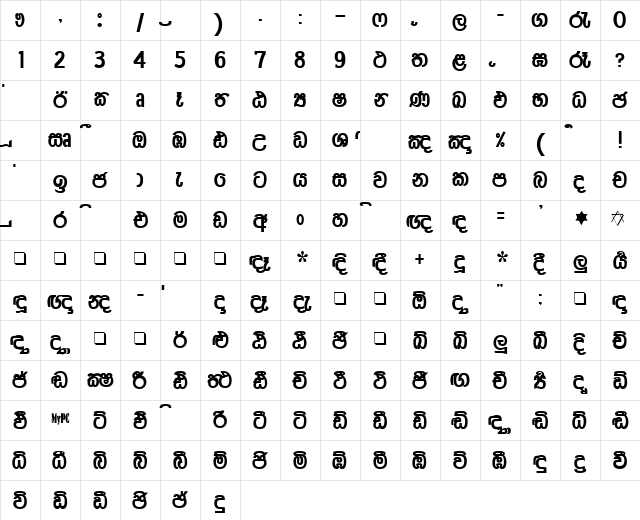
Complete MyPC-ARADHANA Plain glyph index. Displaying only characters natively supported by MyPC-ARADHANA Plain font.
MyPC-ARADHANA is a composed and adaptable typeface that performs quietly and consistently across a wide range of design contexts.